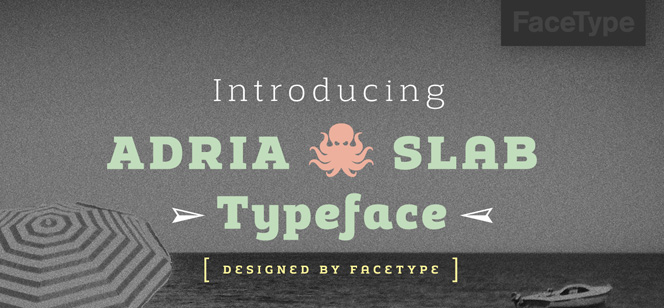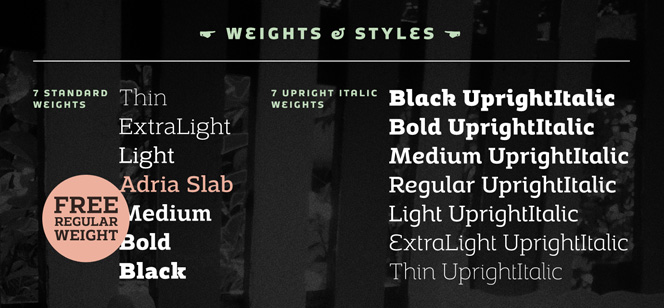
Adria Slab font
Adria Slab font by Marcus Sterz (FaceType foundry) is the highly successful Adria Grotesk’s Slab Serif sister. Both make a perfect pair for making great typography designs. Following is the Marcus’s story about Adria Slab font family creation process:
“The idea of making a slab serif version came while playing with serifs without any hope it would look good – but it did, so I caught fire instantly. My hopes it would be an easy job did not quite meet reality. Simply adding serifs was not enough. Serifs tend to make a letter look more ‘dense’, especially when it comes to the heavier weights. And so I had to make decision somehow to chuck the serif to keep the letters legible and open.
Adding new symbols was an idea that came in the end right before finishing. I thought there HAVE to be new symbols and they should again be connected to that maritime touch of Adria Slab and Adria Grotesk. That’s why there is an octopus, a sunshade, a captain’s pipe, a palm tree, etc. And again, the symbols evolve by weight, they get thicker, except for the sunshade which is blown away by the wind…”
Adria Slab font consists of seven weights and their beloved upright italics, forming a happy family of 14 fonts. There is also available a rich multilingual support and a plenty of OpenType features like: lining, tabular and old style figures, numerators, denominators, tabular figures, fractions, ligatures, some sweet symbols, and even alternate arrows.